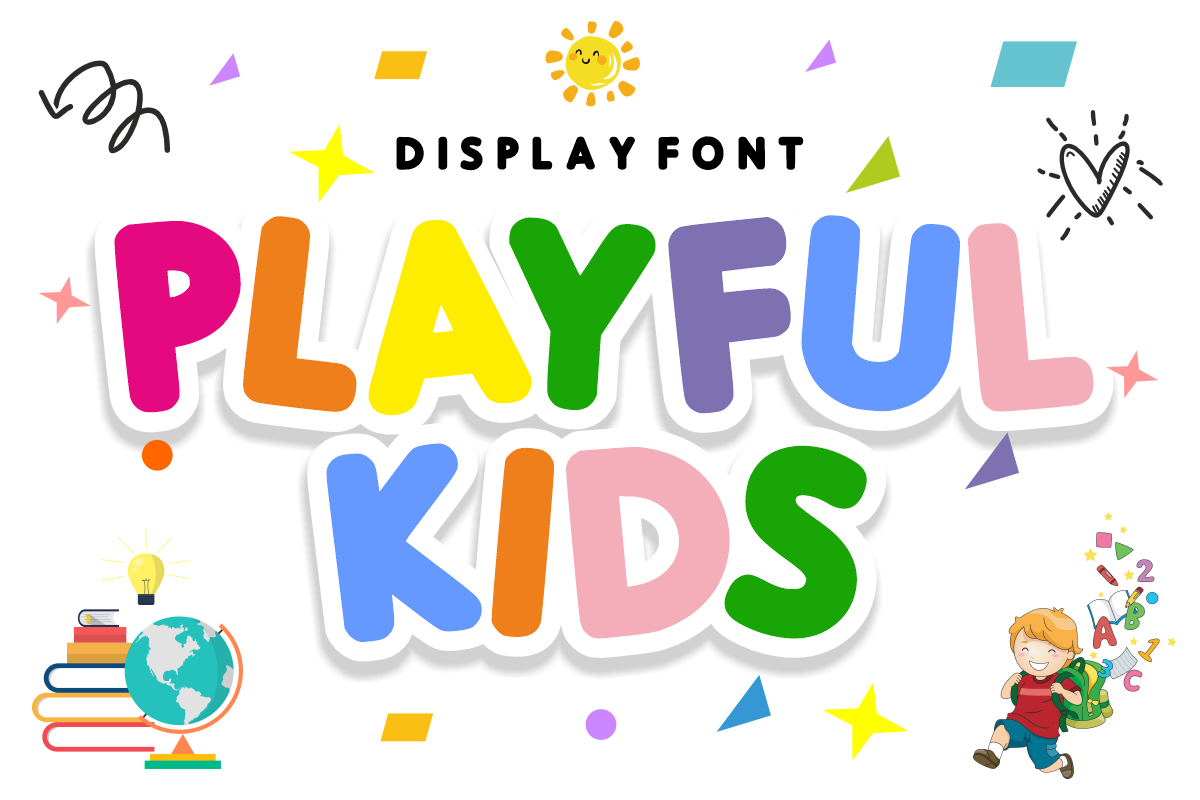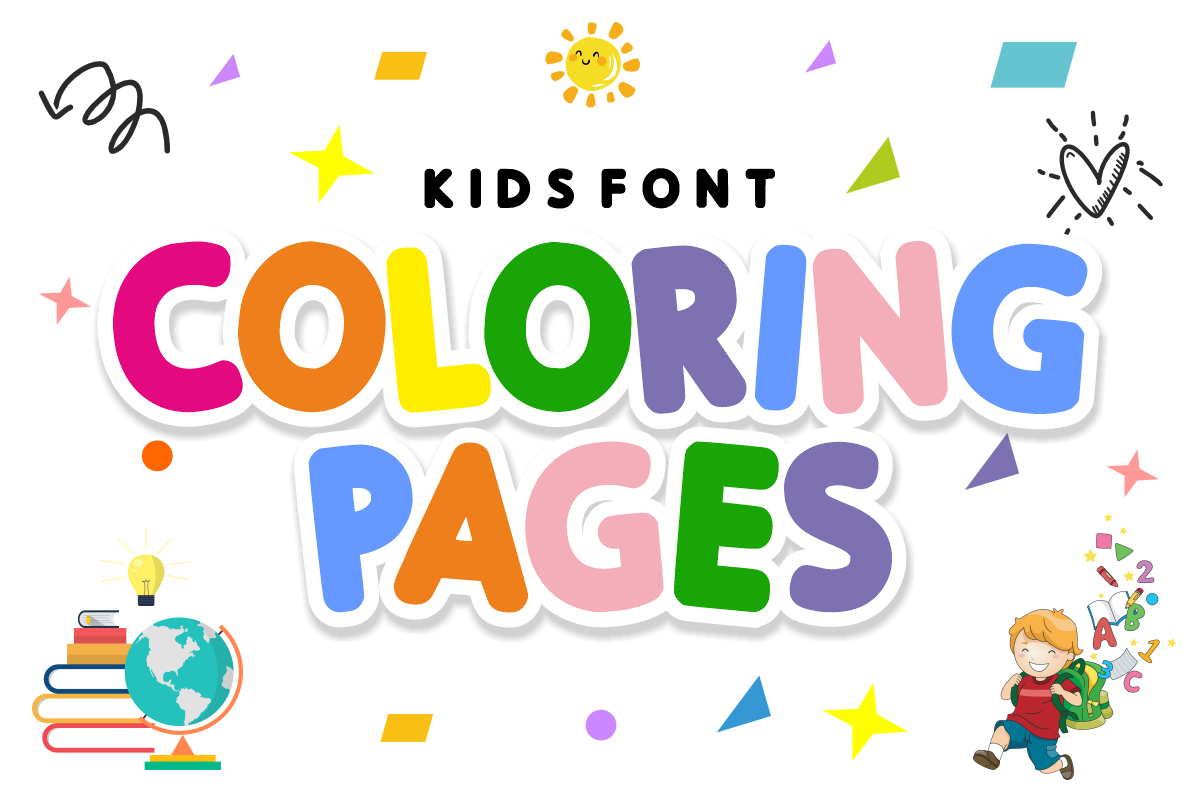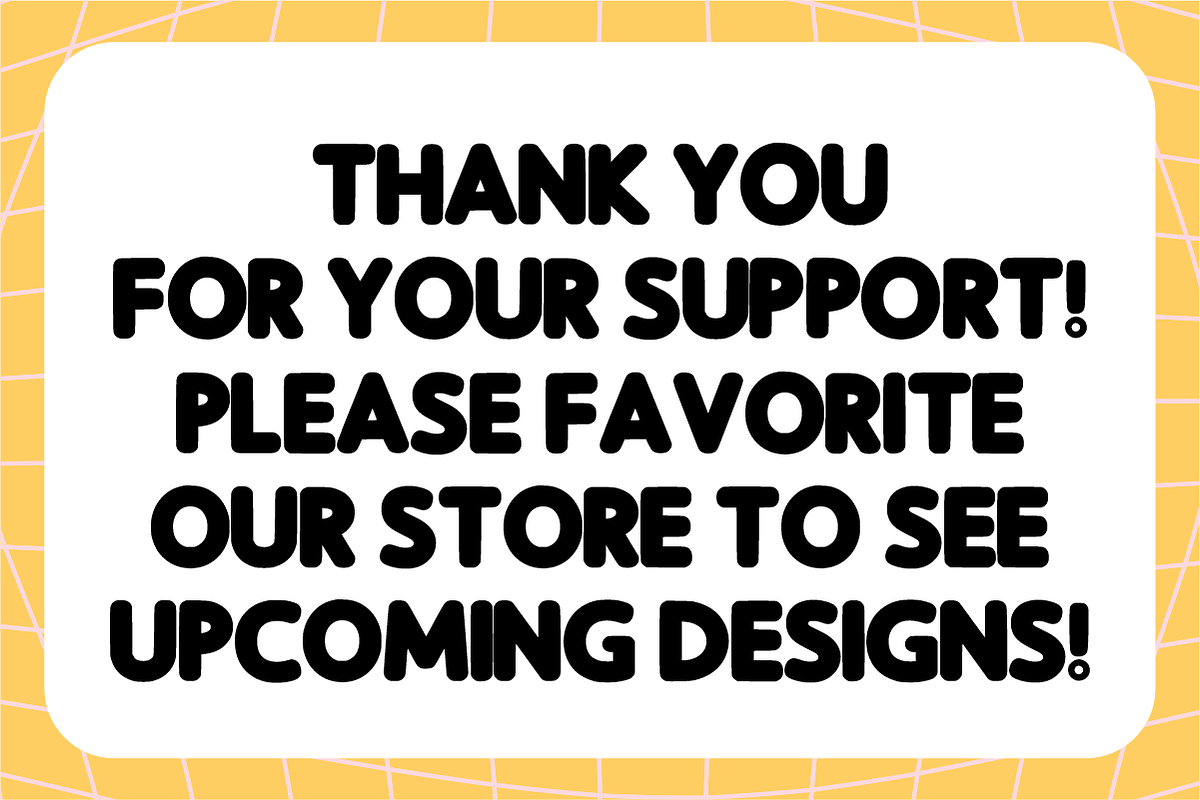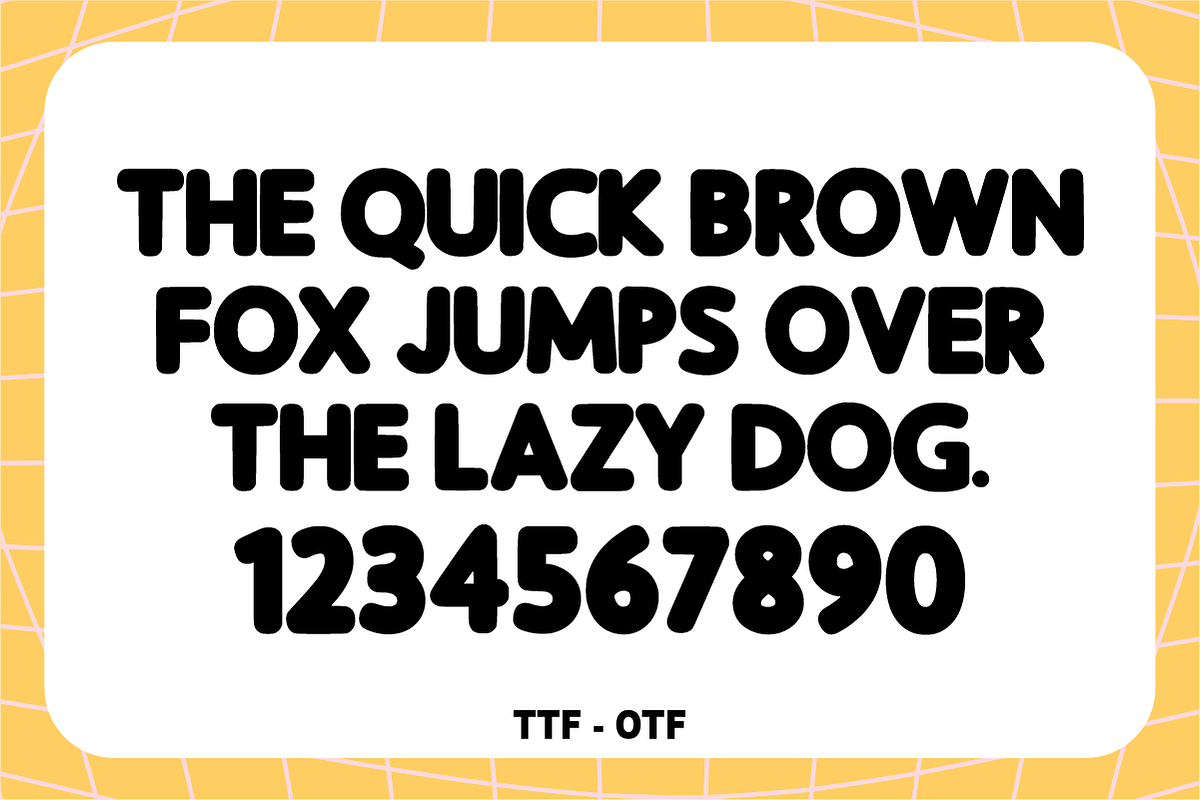
Playful Kids – Vibrant & Bubbly Font
Playful Kids – Vibrant & Fun Bubbly Display Font ✨🎒
Inject pure joy and energy into every design!
Playful Kids is a bold, chunky display font designed to capture the boundless imagination of childhood. Featuring smooth, rounded edges and a friendly "sticker-style" silhouette, this font is the perfect choice for projects that need to be both eye-catching and approachable. Its thick letterforms provide maximum legibility, making your headlines stand out with a sense of fun and excitement.
🌟 Why Playful Kids is a Creative Must-Have:
Energetic & Friendly Aesthetic: The soft, bubbly shapes are specifically crafted to appeal to children, parents, and educators.
High Readability: Despite its playful and thick design, every character is clear and easy to read, even from a distance.
Modern "Sticker" Look: Perfectly aligns with the current trend of outlined, pop-art styles seen across social media and merchandise.
Complete Character Set: Bold Uppercase Letters (A-Z).
Numbers & Symbols: Matching numerals (0-9) and essential simple punctuation.